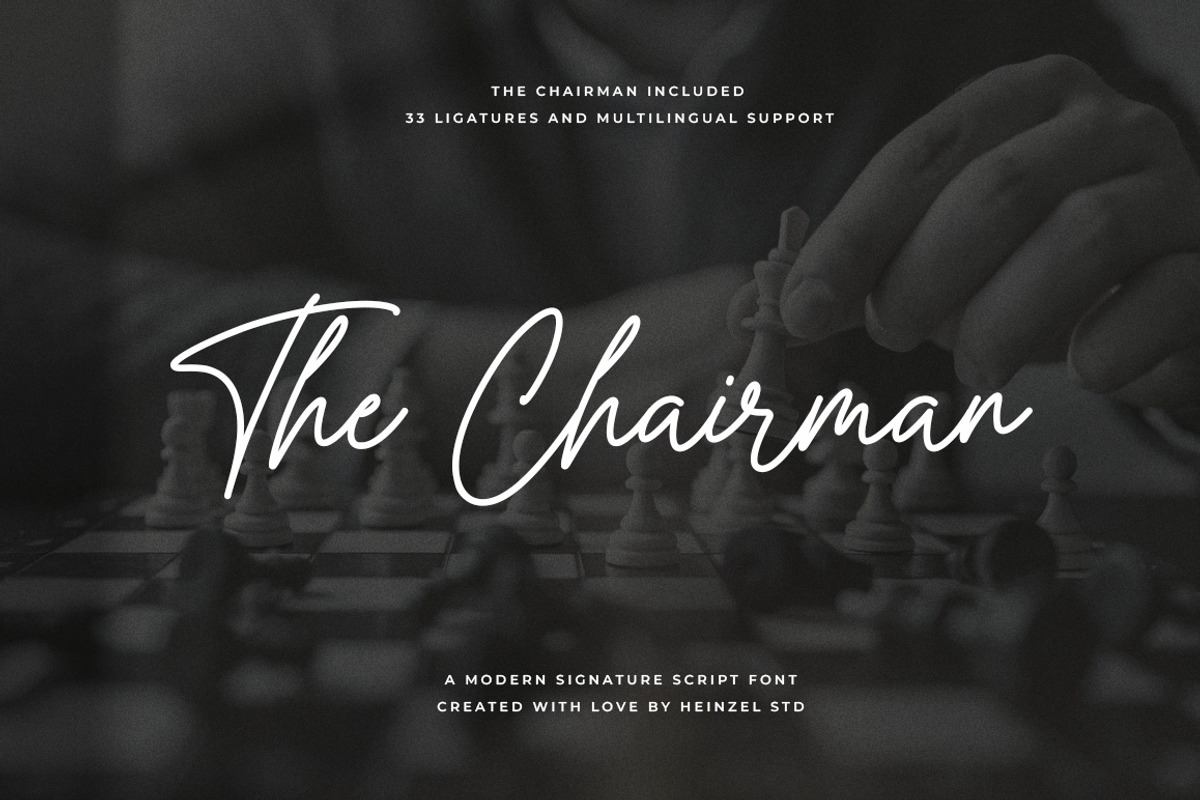
The Chairman Modern Signature Font Free Download
The Chairman Modern Signature Font Free Download is an elegant and sophisticated script typeface that brings a refined, handwritten feel to your designs. Featuring smooth curves and stylish letterforms, this font is perfect for creating high-end branding, luxury logos, wedding invitations, and personal stationery. Its signature-style design adds a unique and personal touch, making it ideal for projects that require both elegance and authenticity. Whether you’re working on a chic brand, a wedding event, or crafting personalized gifts, The Chairman Modern Signature Font Free Download allows you to explore its graceful style in personal projects before purchasing a commercial license. Elevate your designs with the timeless beauty and sophistication of this beautifully crafted signature font.